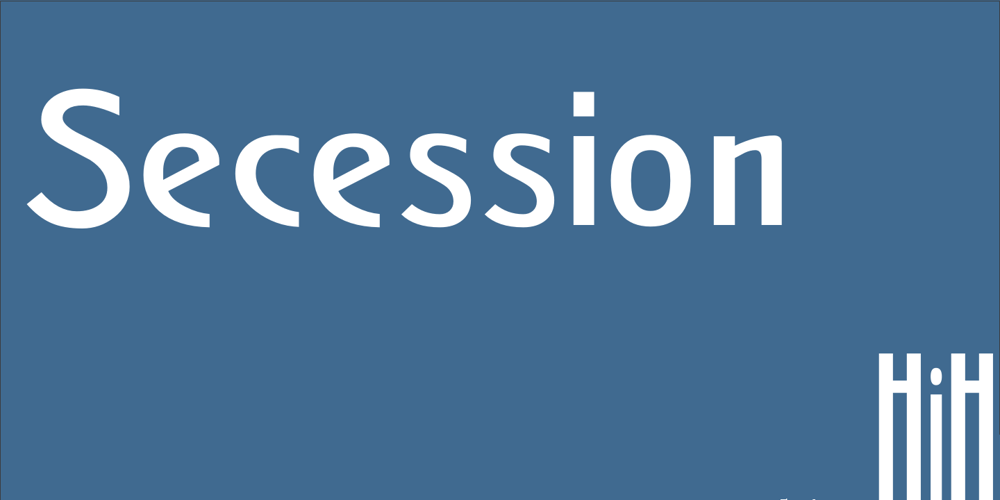
Secession Font Family was designed by published by HiH. Secession contains 3 styles and family package options. Secession is a very readable typeface, suitable for short blocks of text. If you have grown weary of the standard sans-serif faces one sees all the time, you may want to use Secession as a fresh and distinctive substitute. Like Kunstler Grotesk, Secession is one of a number of typeface designs that attempts to reconcile Germany’s blackletter tradition with the international familiarity of roman letterforms in a simple, robust design suitable for meeting the demands of a modern industrial economy, while rejecting the extraneous ornamentation of the departing Victorian era. Unlike Kunstler Grotesk, Secession was designed with a lower case. Secession Bold was originally jointly released as Halbfette Secession by Bauer & Company of Stuttgart and H. Berthold AG of Berlin around 1898. The rest of the family was designed by HiH. The basic family of four: Text, Oblique, Bold and BoldOblique are available in two versions: one set with the standard contemporary lining or ranging numerals for spreadsheets and tables and one set of old-style figures (with OSF in font name) for use with text. The two versions of the basic family, Secession and Secession OSF were released in July 2006. Cousins include ExtraBold, SCOSF Text, and two multi-lingual versions of the text weight. Secession ML includes the Latin Extended-A character set in unicode format plus 17 ligatures and a few strays. Secession GreekML has all the characters of the ML version plus the unicode Greek set and 17 Greek ligatures. Release of the cousins took place in August and October of 2006. Click on BUYING CHOICES. Click on GLYPHS and use drop-down menus and slider to see the all the glyphs for the various fonts. Similar: Birmingham (Ref 100 Ornamental Alphabets, Solo); Spartana (Art Nouveau Display Alphabets, Solo)